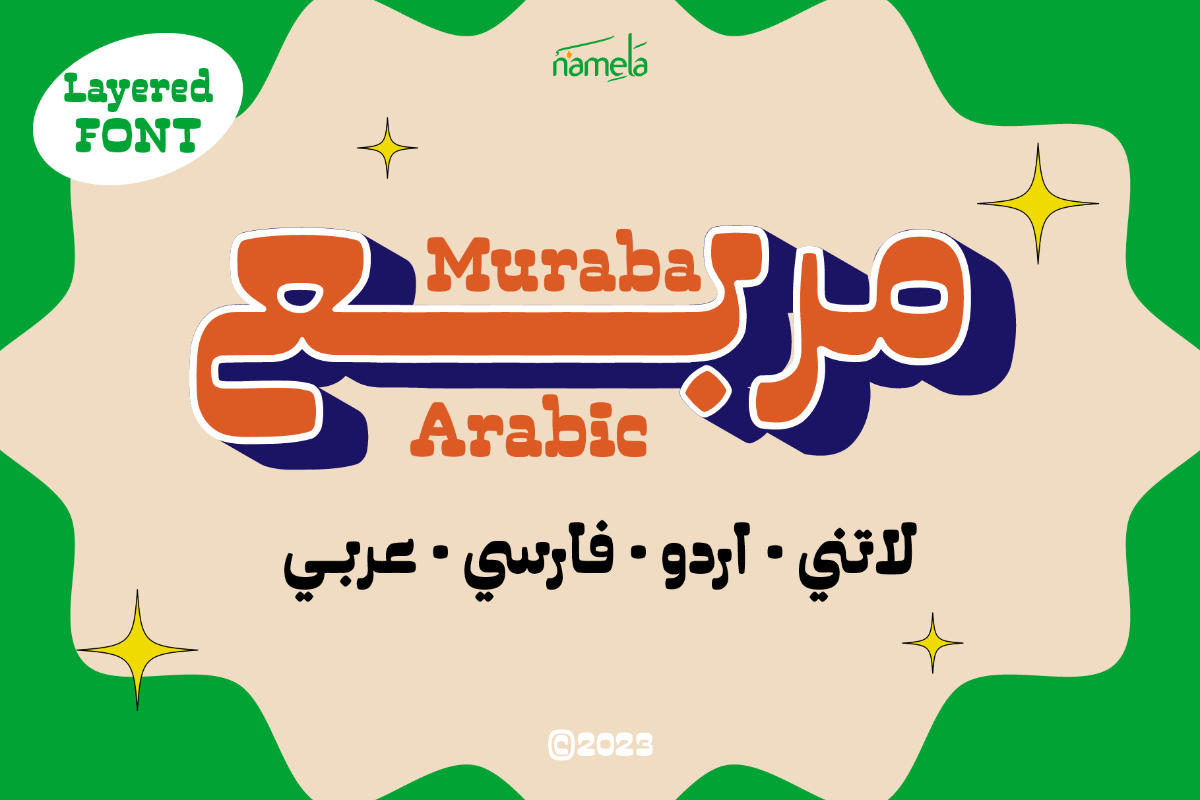
Muraba Arabic Regular
Muraba Arabic Font - A Retro Slab Serif Arabic Typeface for Bilingual Branding & ePub Bilingual design is more complex than it appears. Creating harmony between Arabic and Latin in a single layout—while maintaining consistent visual weight, tone, and personality—requires a carefully crafted typeface. Muraba Arabic is built precisely for this purpose: a bold, retro slab serif display font that extends the Muraba Latin family into Arabic and beyond, forming a unified multilingual typographic sys